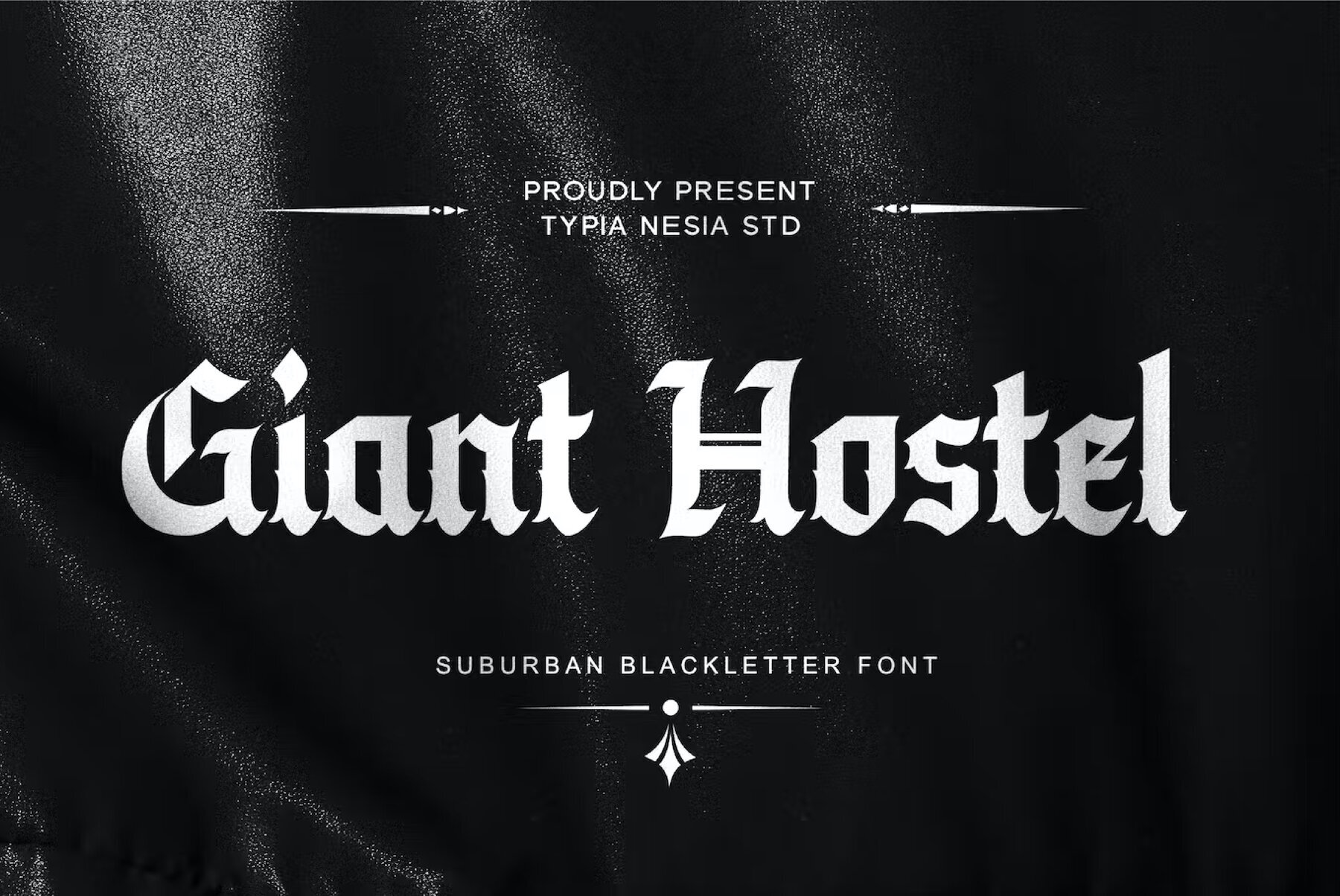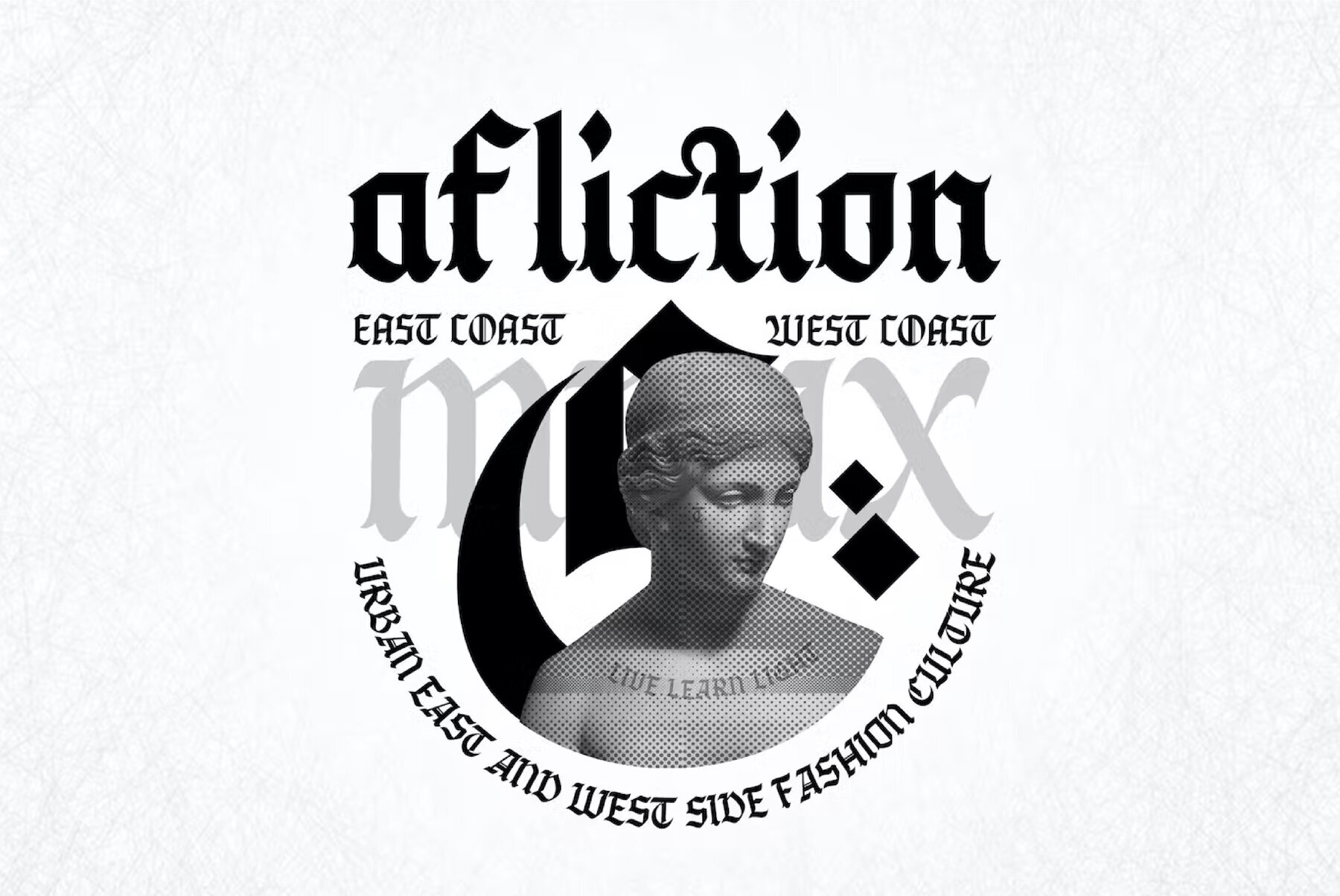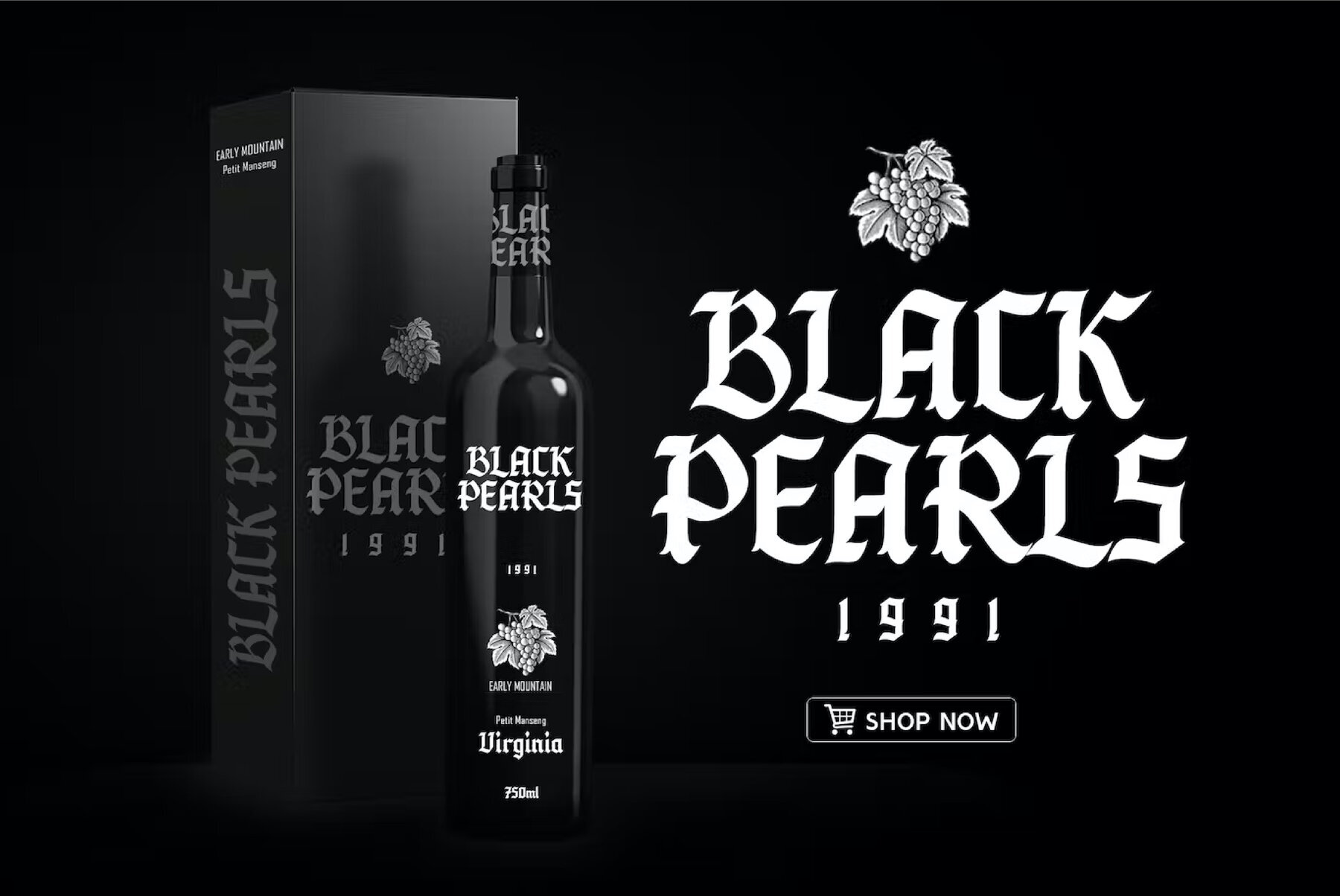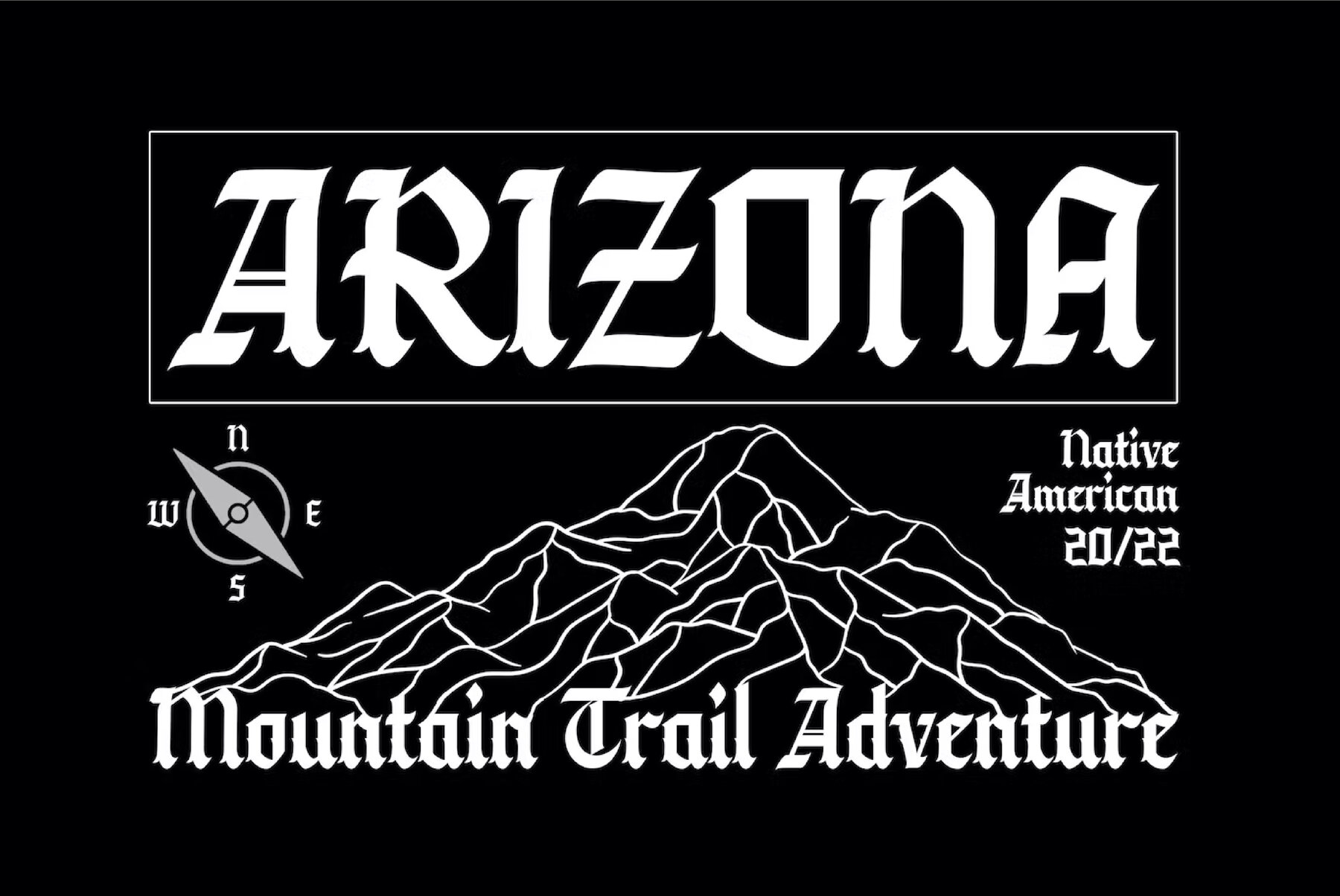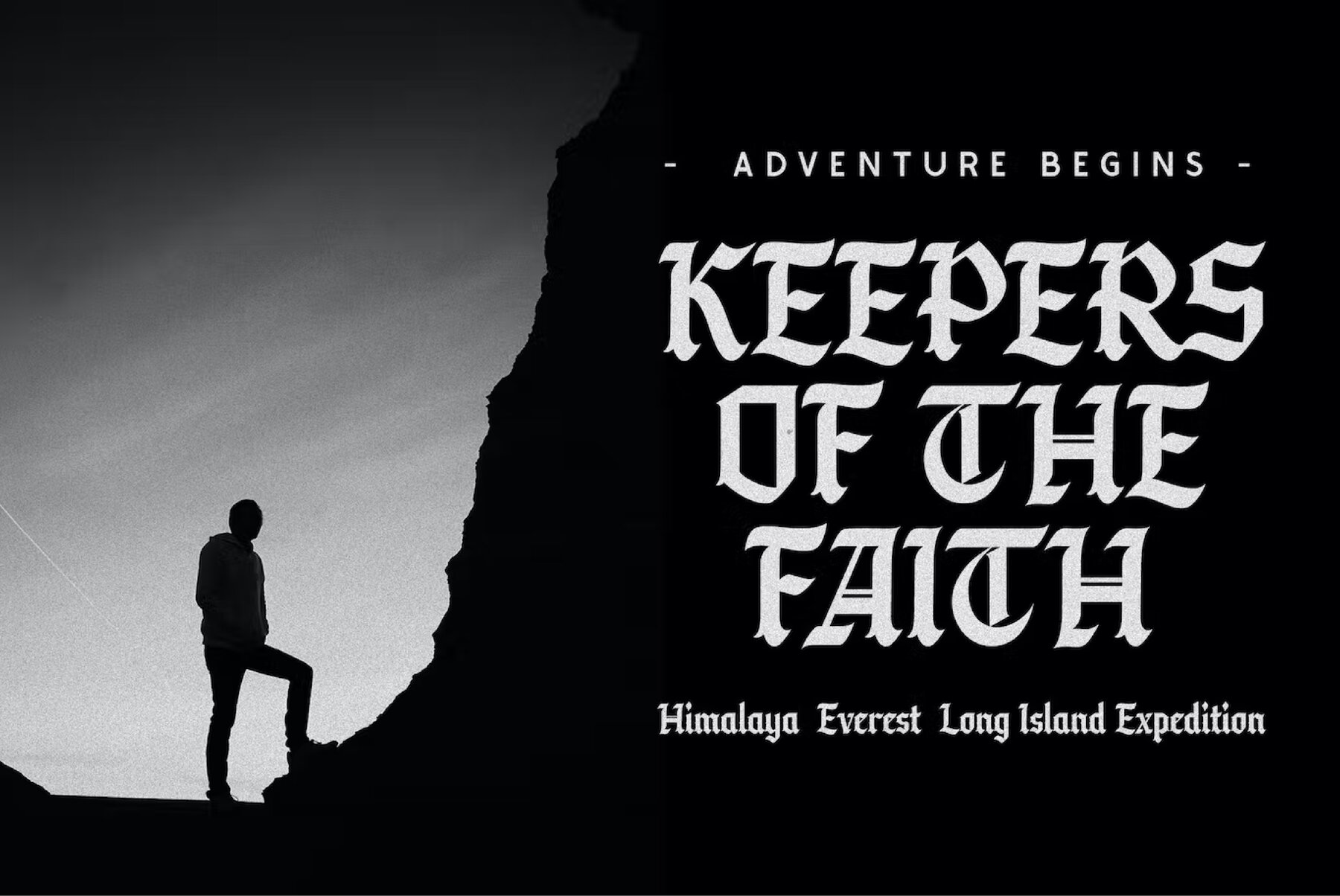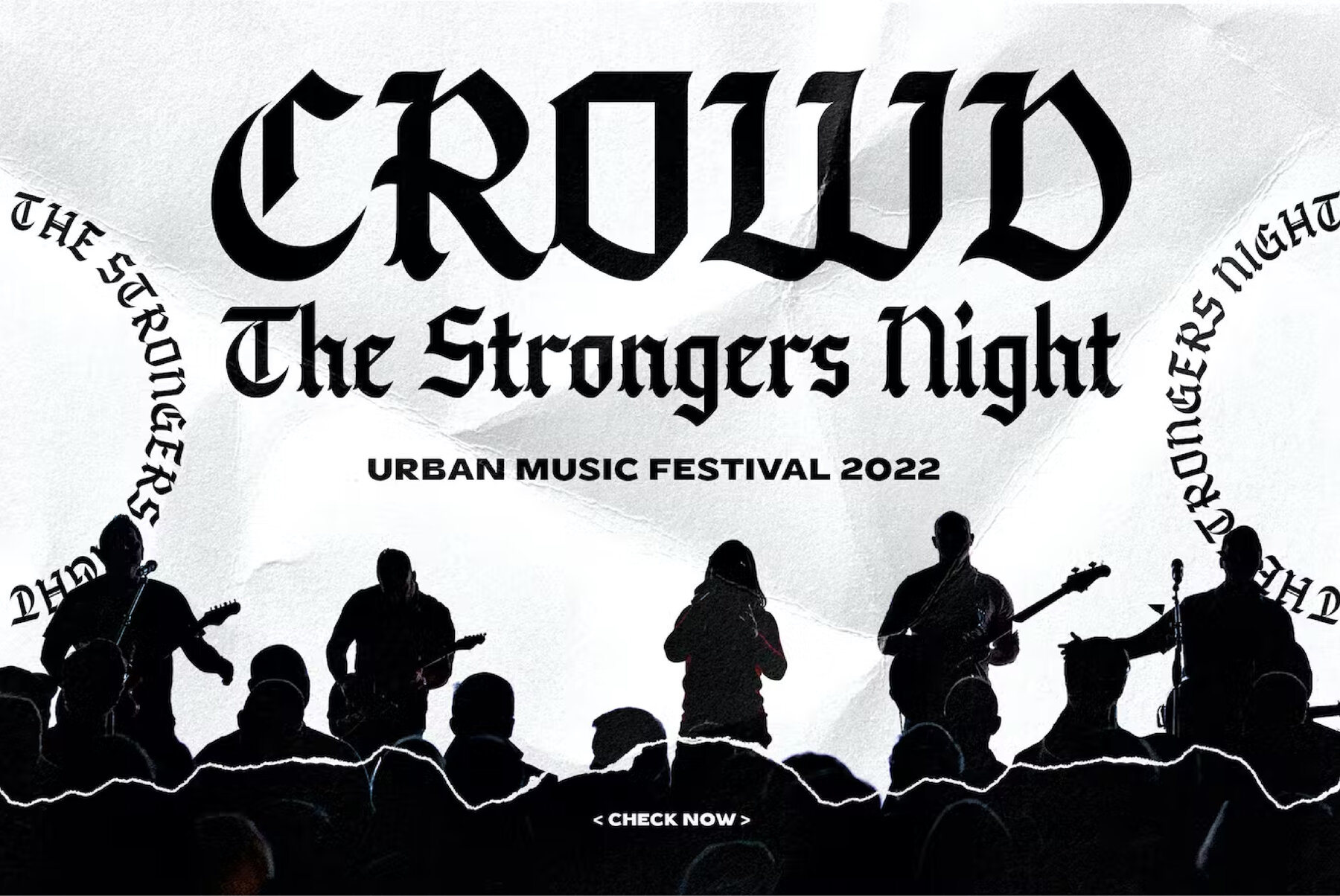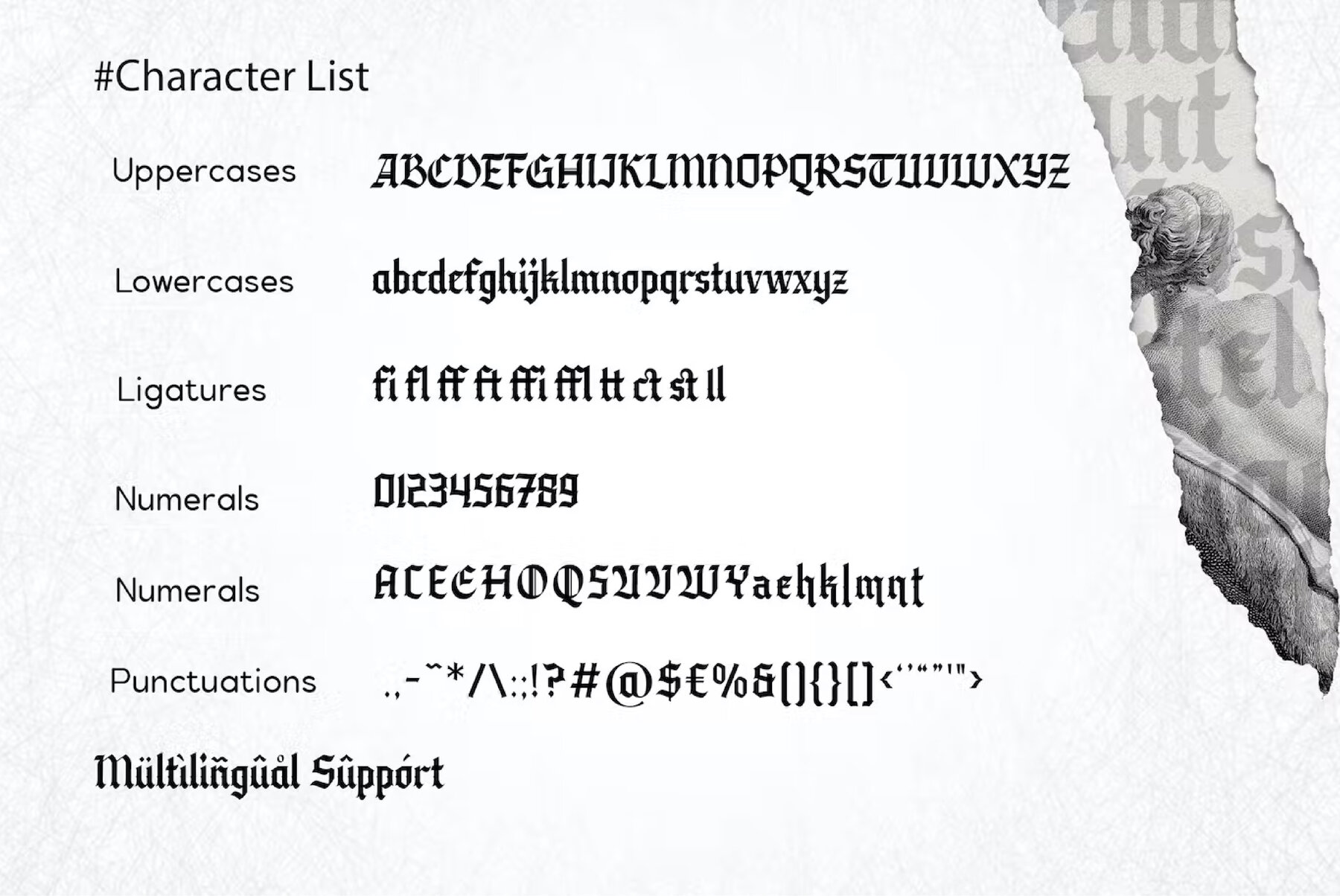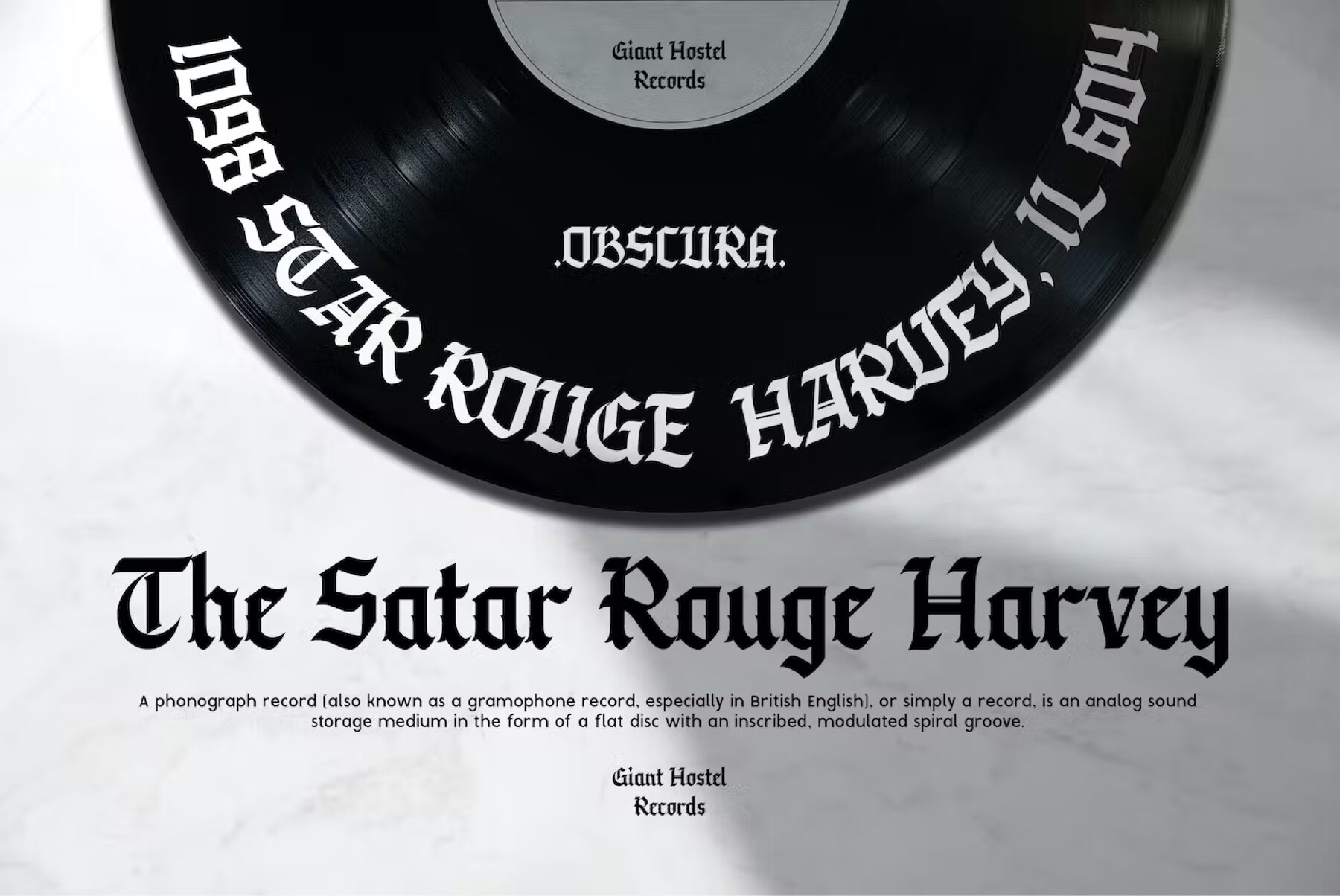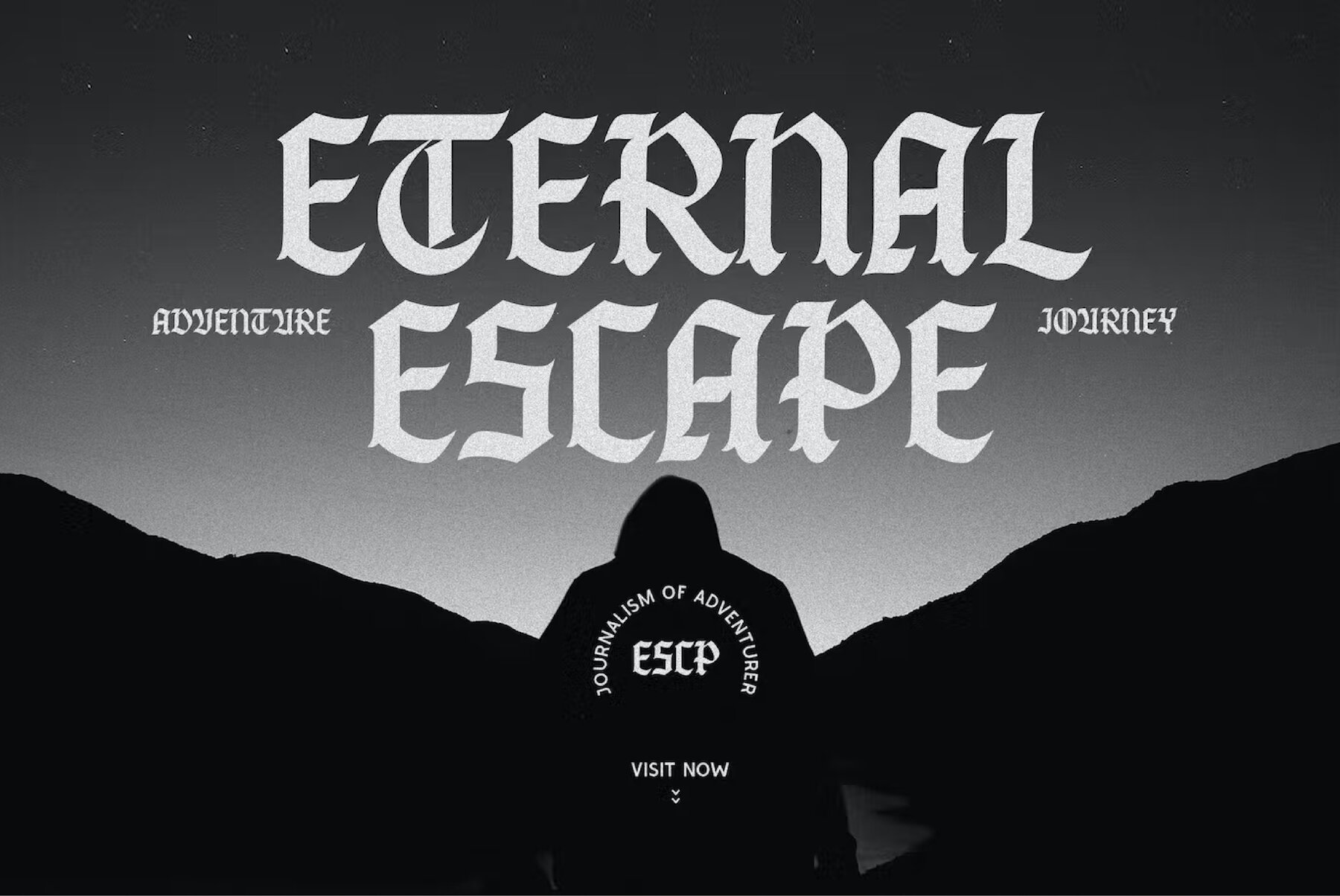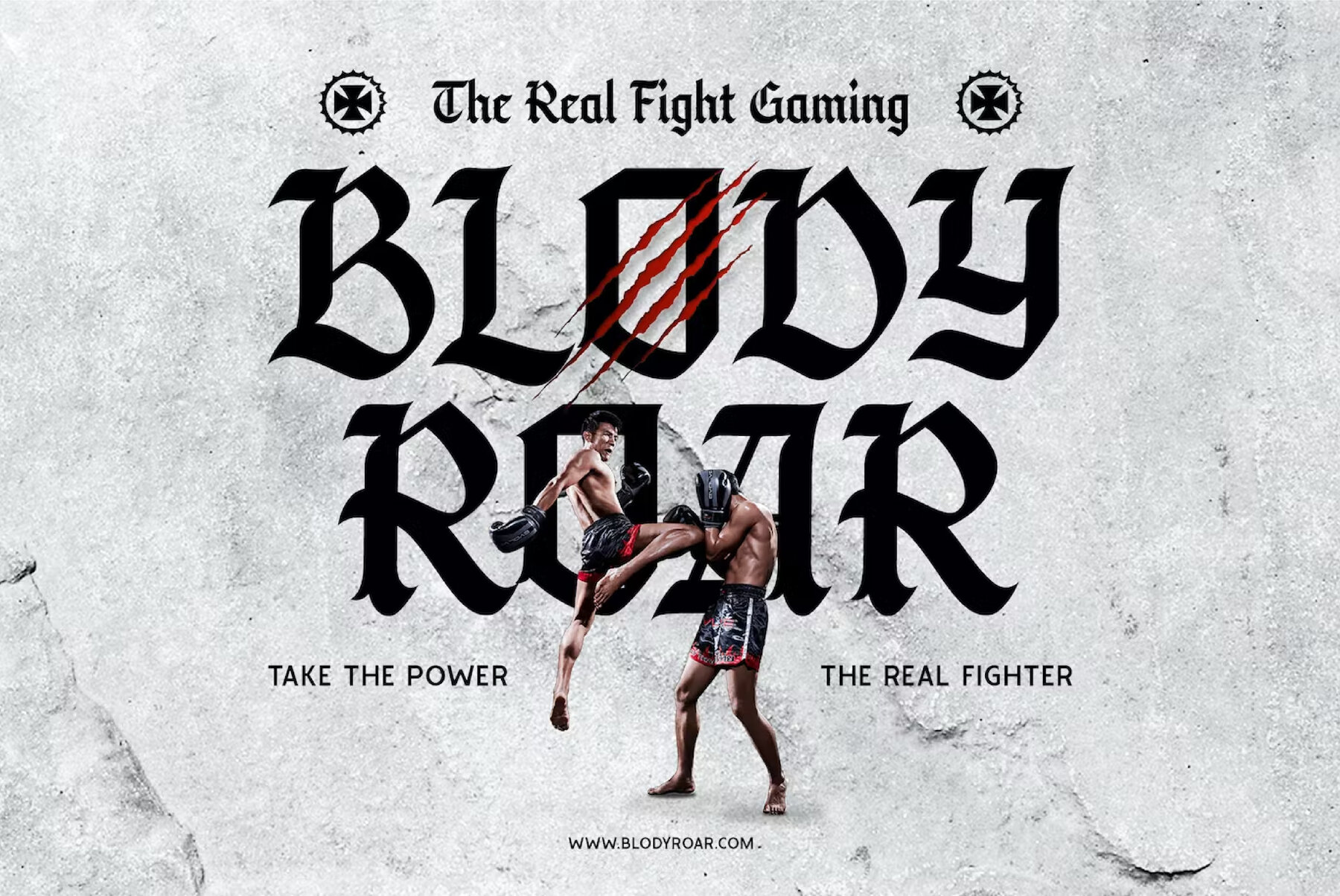
Giant Hostel Font
Giant Hostel Regular
Giant Hostel, a creation from Typia Nesia Std, offers a distinctive blackletter style with SubUrban flair. This decorative display font is apt for an array of creative projects, infusing designs with a gothic allure perfect for captivating audiences. Features: Enhance your projects with Giant Hostel's distinctive charm, making it a versatile choice for any gothic hand-lettering needs.Giant Hostel: SubUrban Blackletter Decorative Display Font